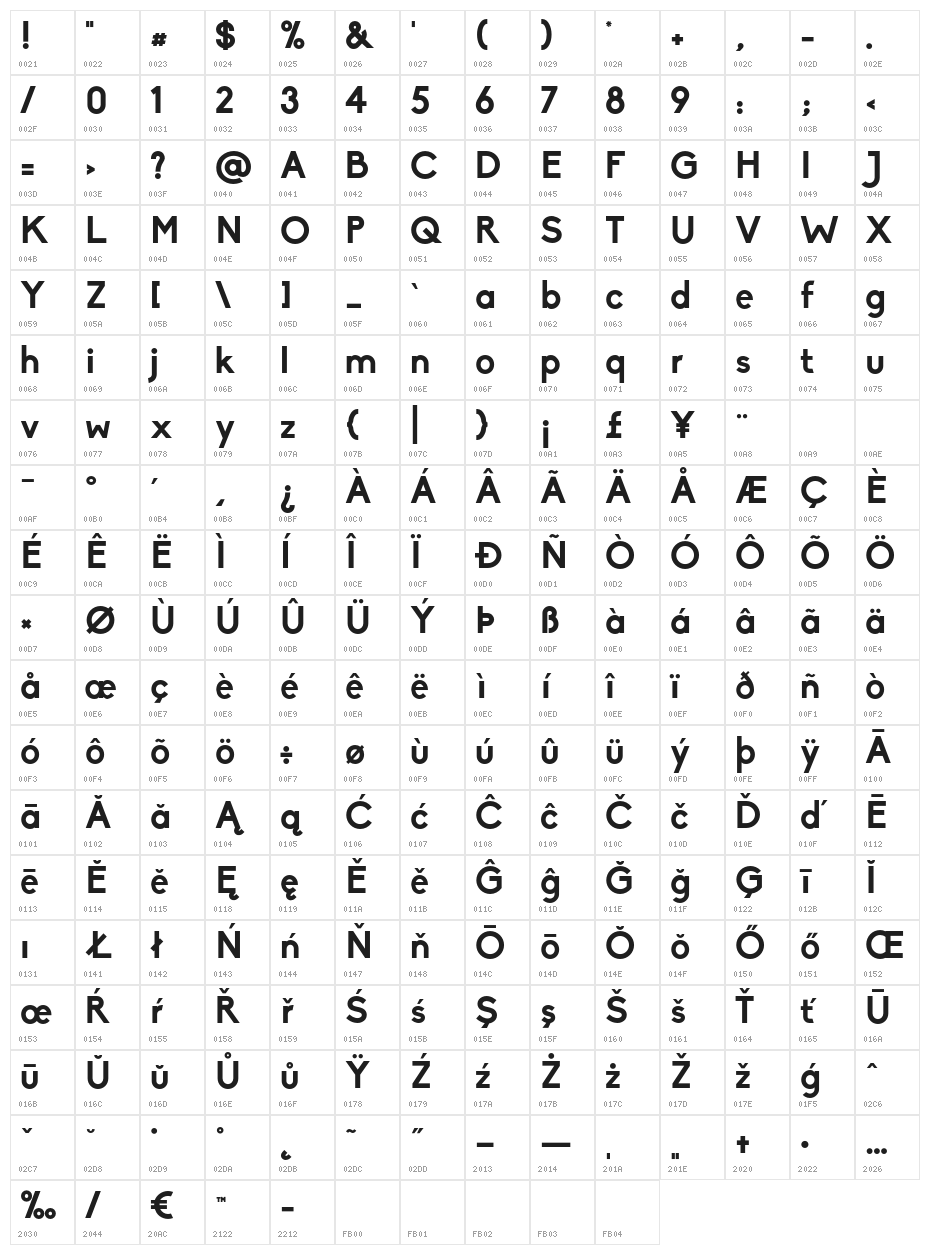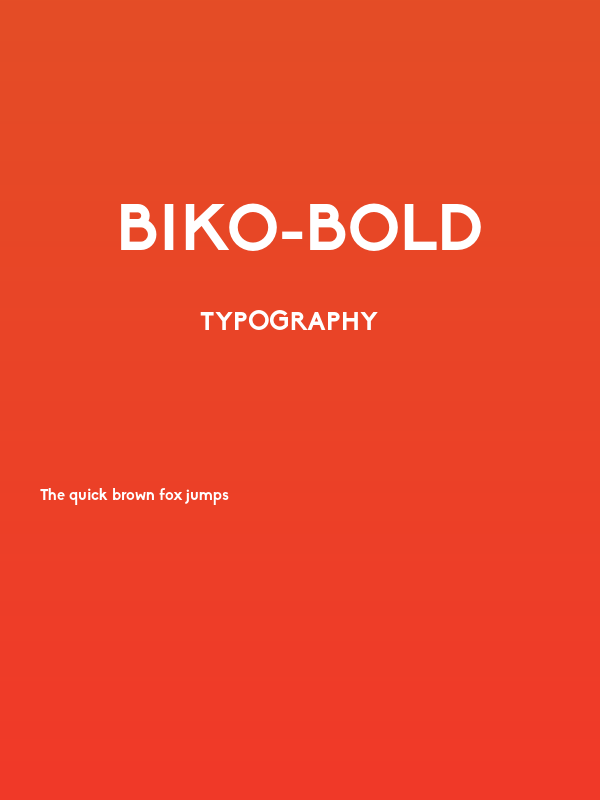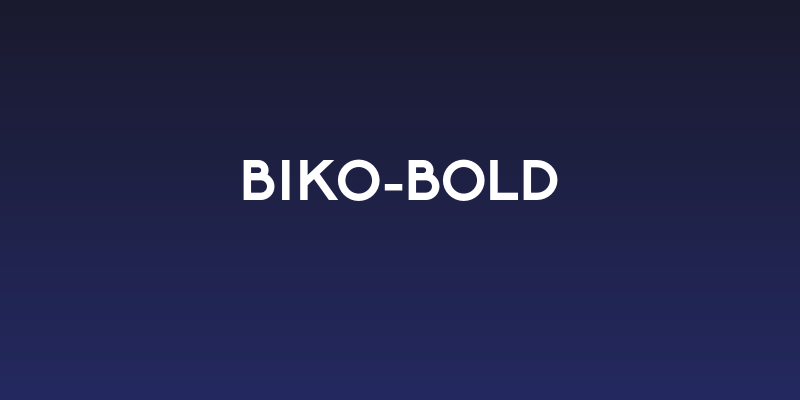
Biko-Bold Font
Biko-Bold Description
This font features a bold and modern sans-serif design with clean lines and a geometric structure. The uppercase letters are uniform and balanced, while the lowercase letters maintain a consistent height, contributing to its readability. The numerals are distinct and clear, making them suitable for various applications. Special characters are well-defined, adding versatility to the font. Its bold weight and normal width make it ideal for impactful headlines and branding projects.
| Proposed Projects | Ideal for branding, advertising, headlines, and digital media projects. |